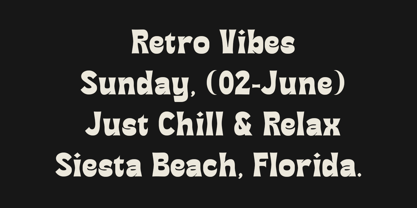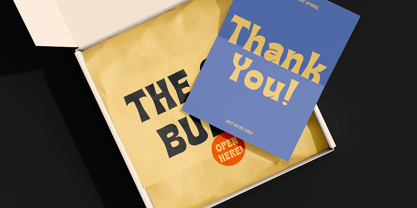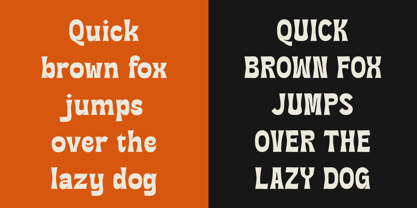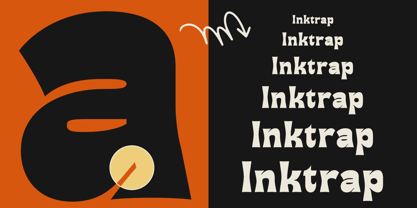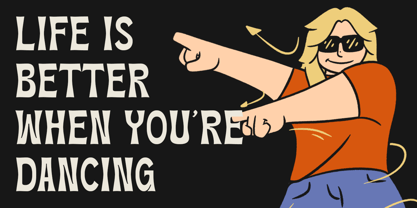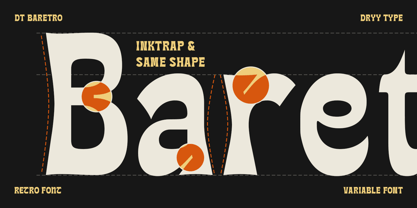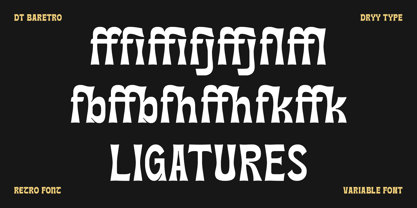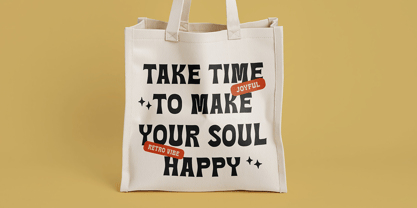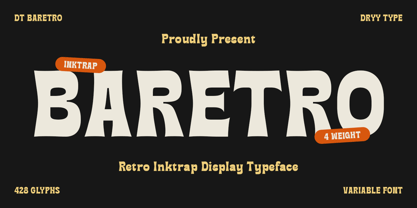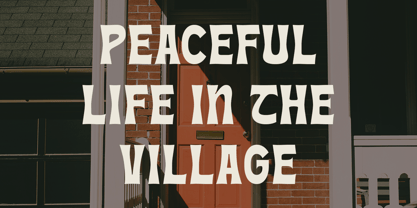
DT Baretro
Die Schriftfamilie DT Baretro wurde von Rian Dryana entworfen und von Dryy Type veröffentlicht. DT Baretro enthält 4 Stile und Familienpaketoptionen.
DT Baretro is a retro-themed font created to make your design more fun and add a cheerful and retro impression when using it, The font I created is meaningful & very versatile, suitable for various designs, elevating it to the highest level. Add this font to your favorite creative ideas and see the results!
Features: Uppercase, Lowercase, Alternate, Ligature, Numeric, & Multilingual Support
Variable : Regular, Medium, Semi Bold, Bold